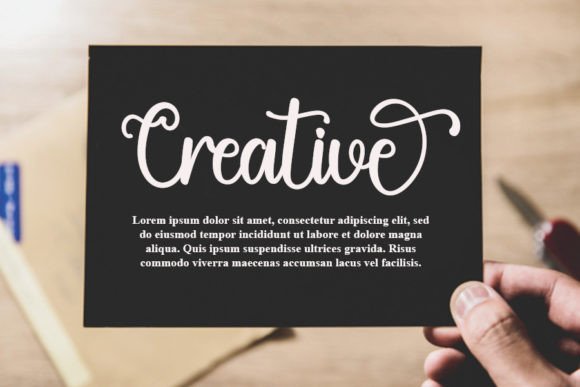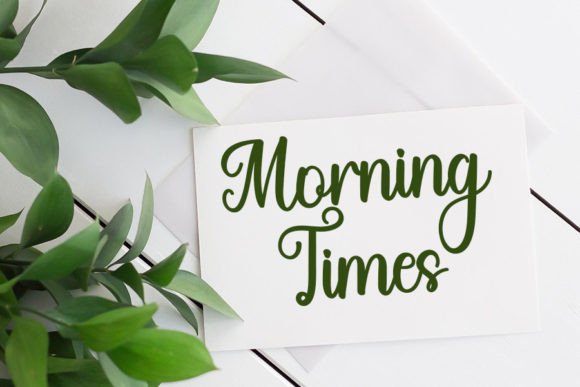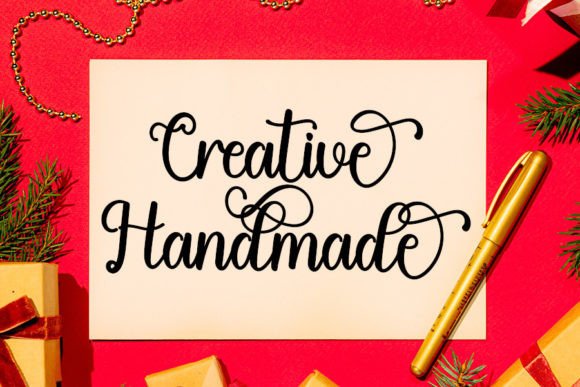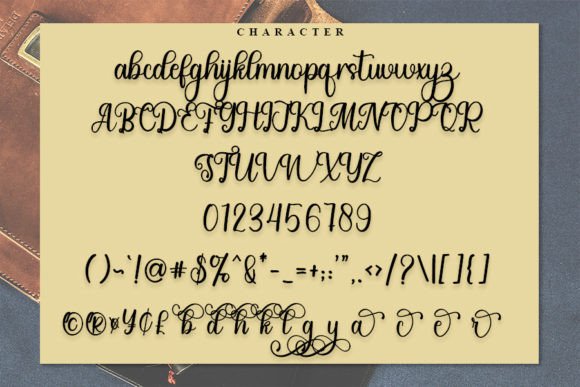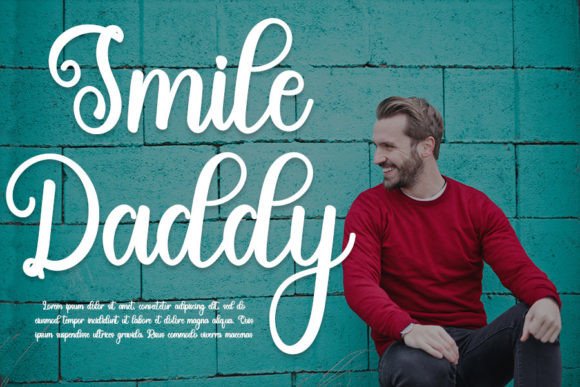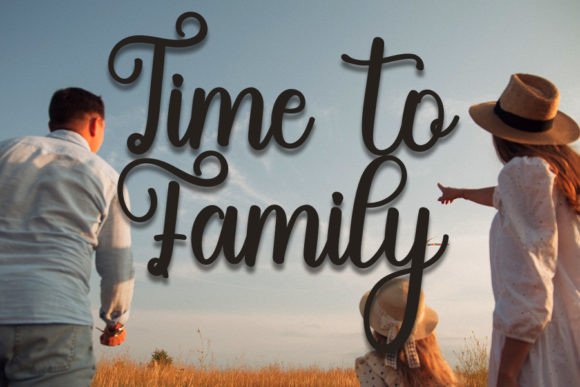
The Designer’s Delight: Getting to Know the Elegant Daughter Font
I’ll never forget the time I was working on a wedding invitation project, and my client asked for a font that was both elegant and modern. I scoured the internet, trying out font after font, but nothing seemed quite right. That was until I stumbled upon the beautiful Daughter Font. With its refined handwritten style and classy vibe, it was love at first sight! 💕
A Personal Review of Daughter Font
So, what makes Daughter Font so special? Let’s dive into the good stuff! 😊
- ✨ Beautifully crafted handwritten style: Each letter is carefully designed to give your designs a personal touch.
- ✅ PUA encoded for easy access: No need to worry about complicated encoding – just access all the amazing glyphs and ligatures with ease!
- 💼 Perfect for a variety of projects: Logos, branding, invitations, stationery, wedding designs, social media posts – the list goes on!
- 👍 Classy and modern: This font effortlessly elevates your designs, making them look sophisticated and on-trend.
While Daughter Font is an amazing addition to any designer’s toolkit, there are a few things to keep in mind:
- ⚠️ May require some getting used to: As with any new font, it might take some time to get familiar with the unique characteristics and glyphs.
- 🤔 Limited availability of certain characters: Some users have reported that certain characters or symbols might not be available, so be sure to test the font thoroughly.
The Story Behind Daughter Font
While the origins of Daughter Font might be shrouded in mystery, it’s clear that the designer had a passion for creating elegant, modern typography. Imagine a designer, sitting at their desk, pouring over letterforms and carefully crafting each detail to create a font that’s both beautiful and functional. 💻
| What is PUA encoding, and why is it important? | PUA (Private Use Area) encoding allows designers to access a wide range of glyphs and ligatures, making it easier to create unique and creative designs. |